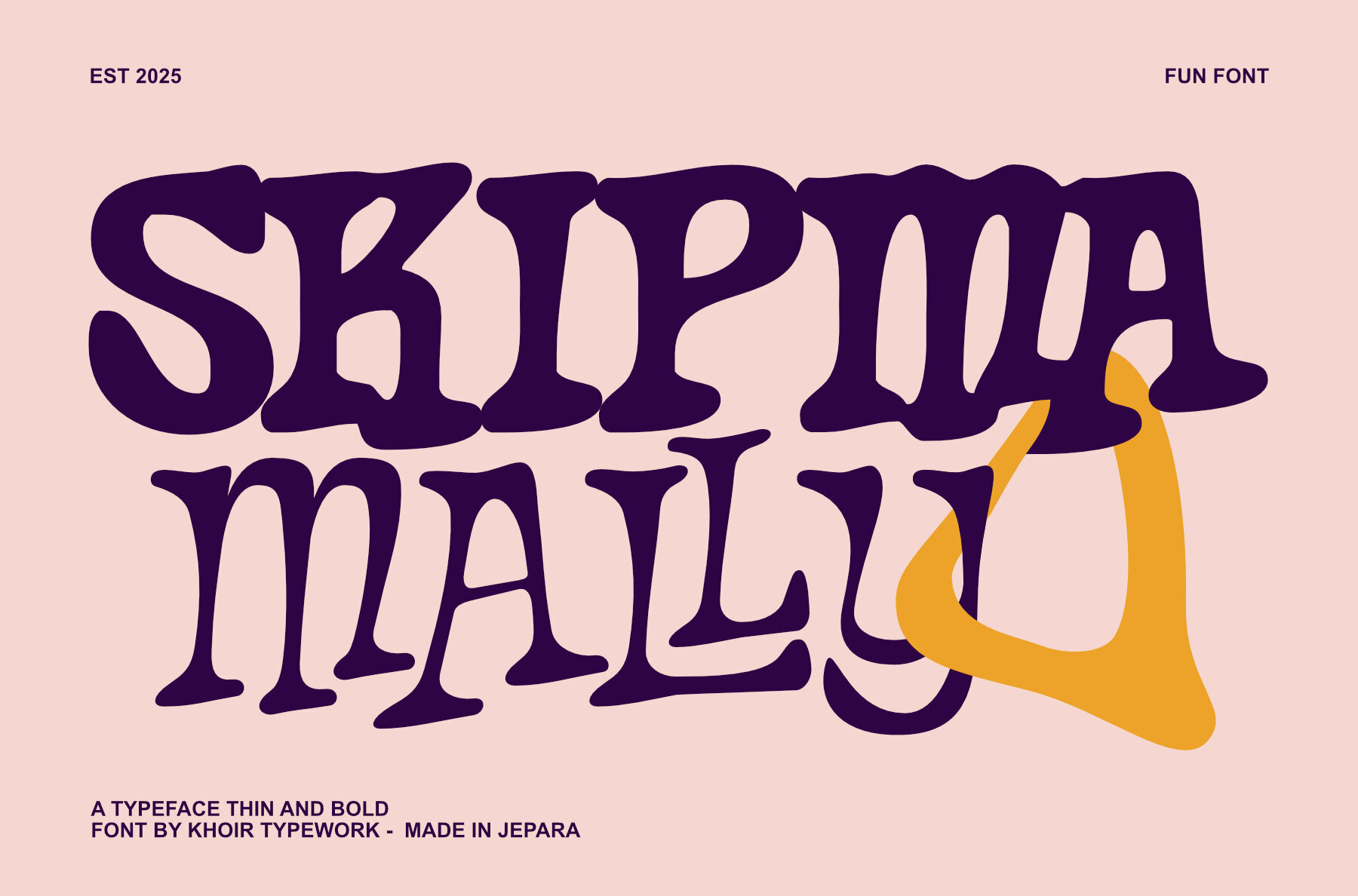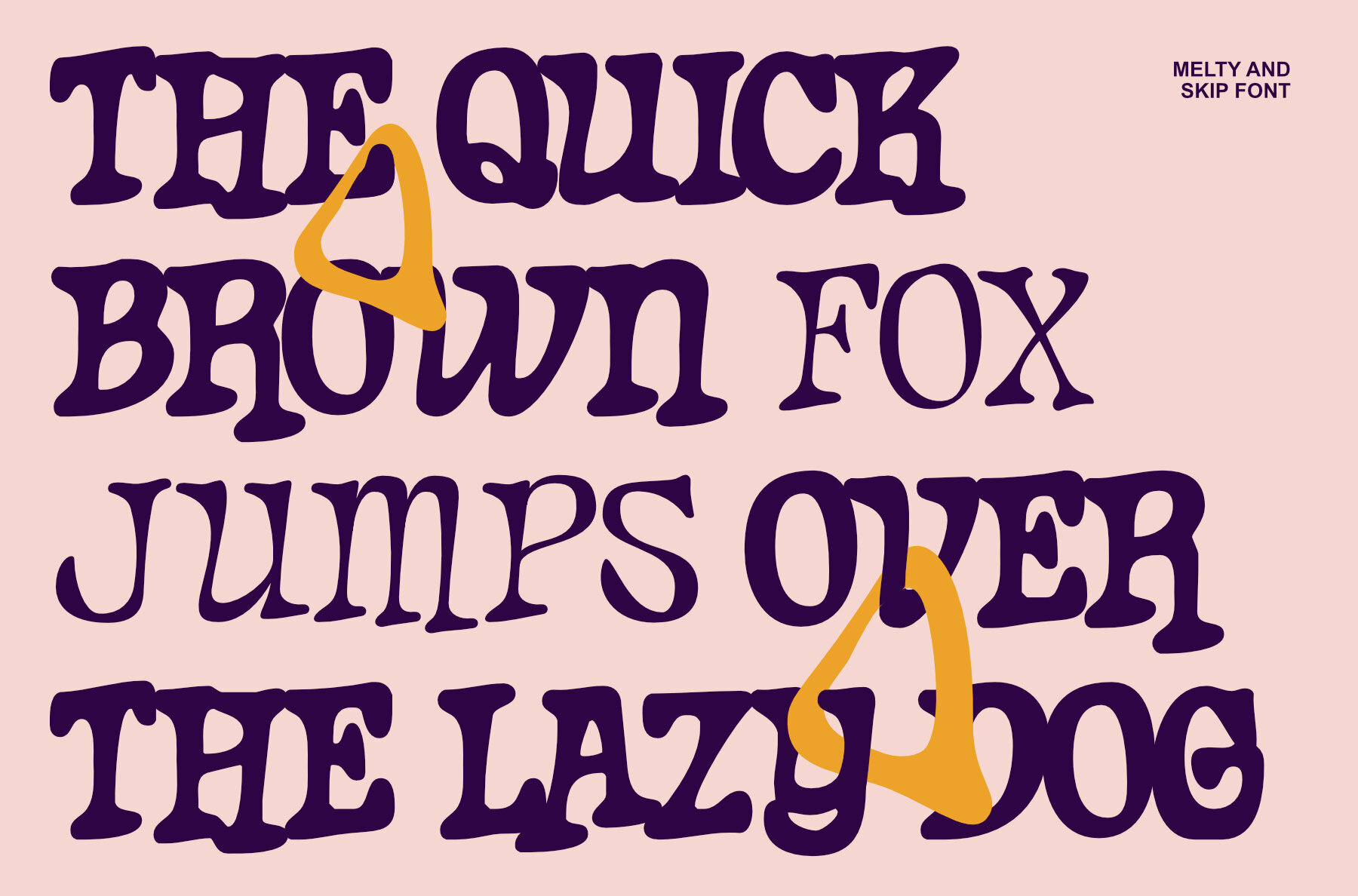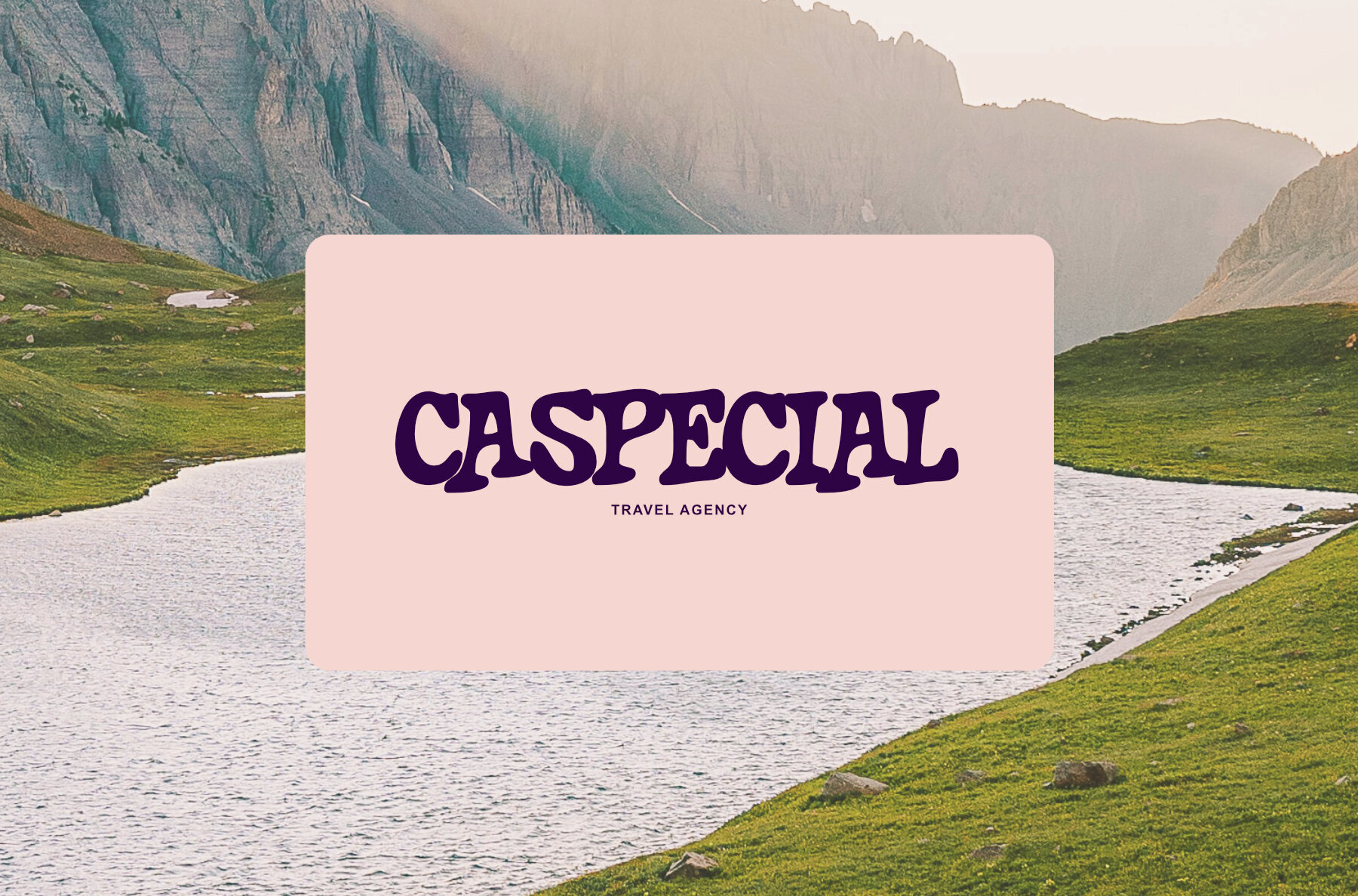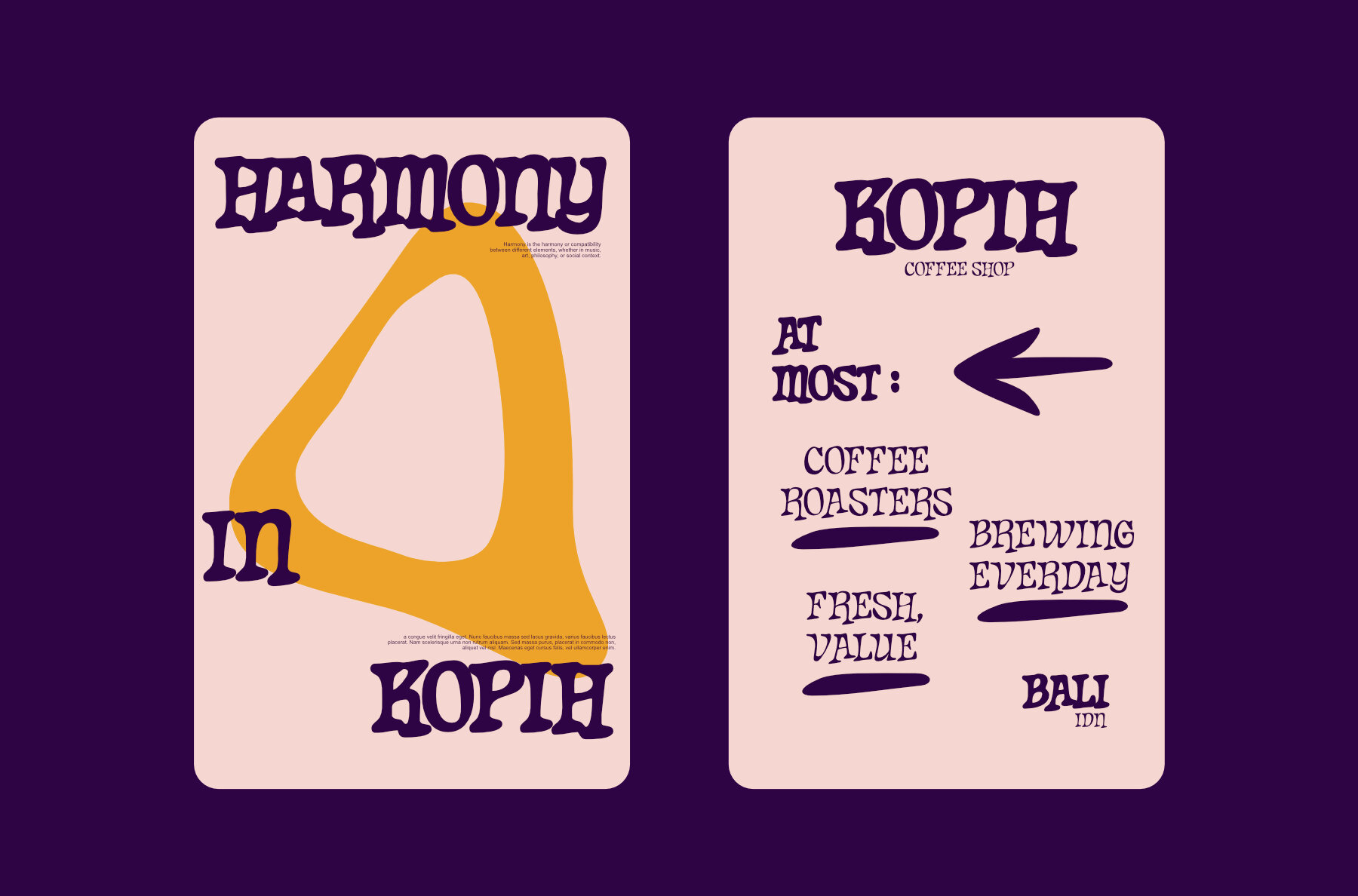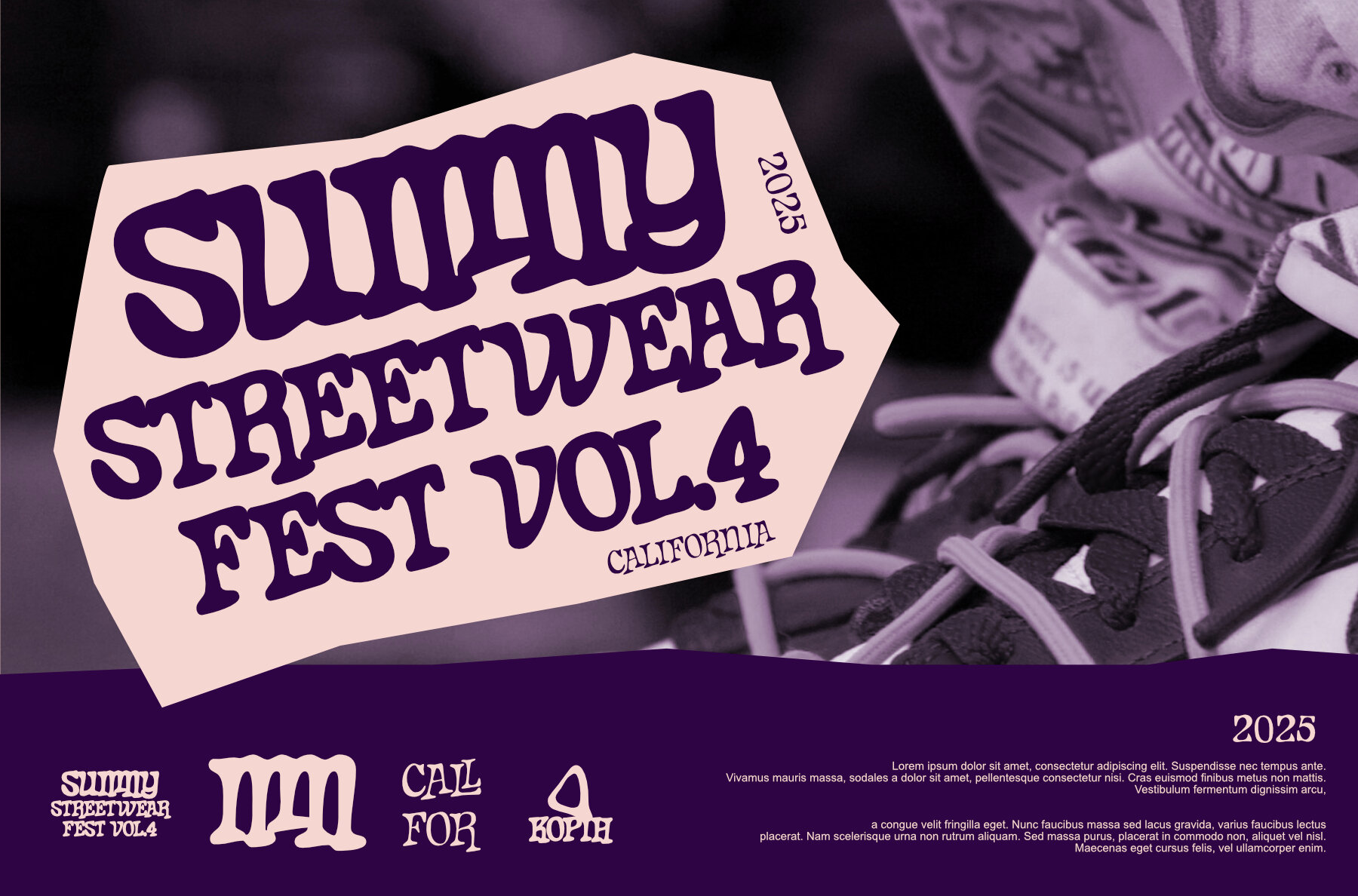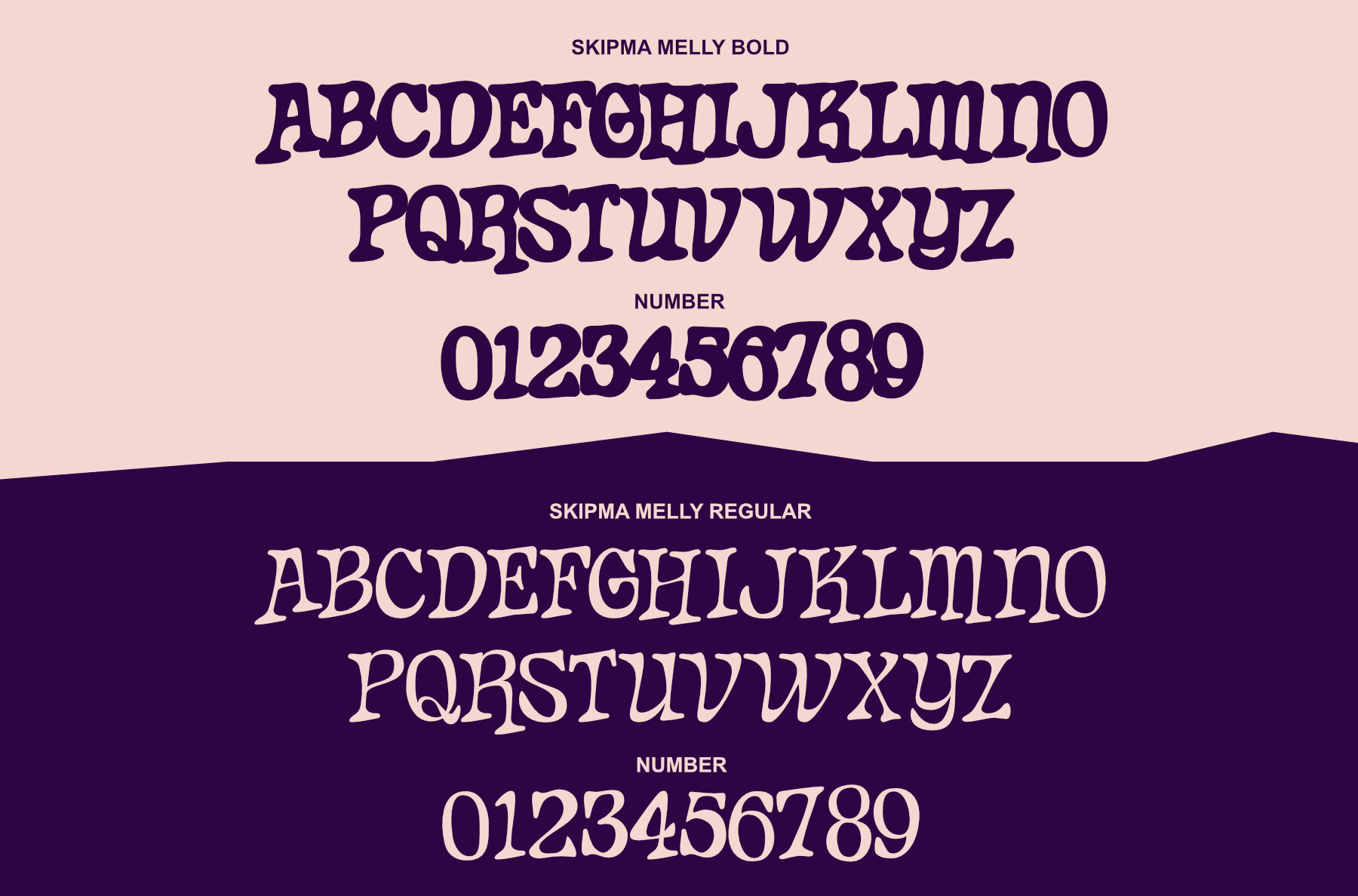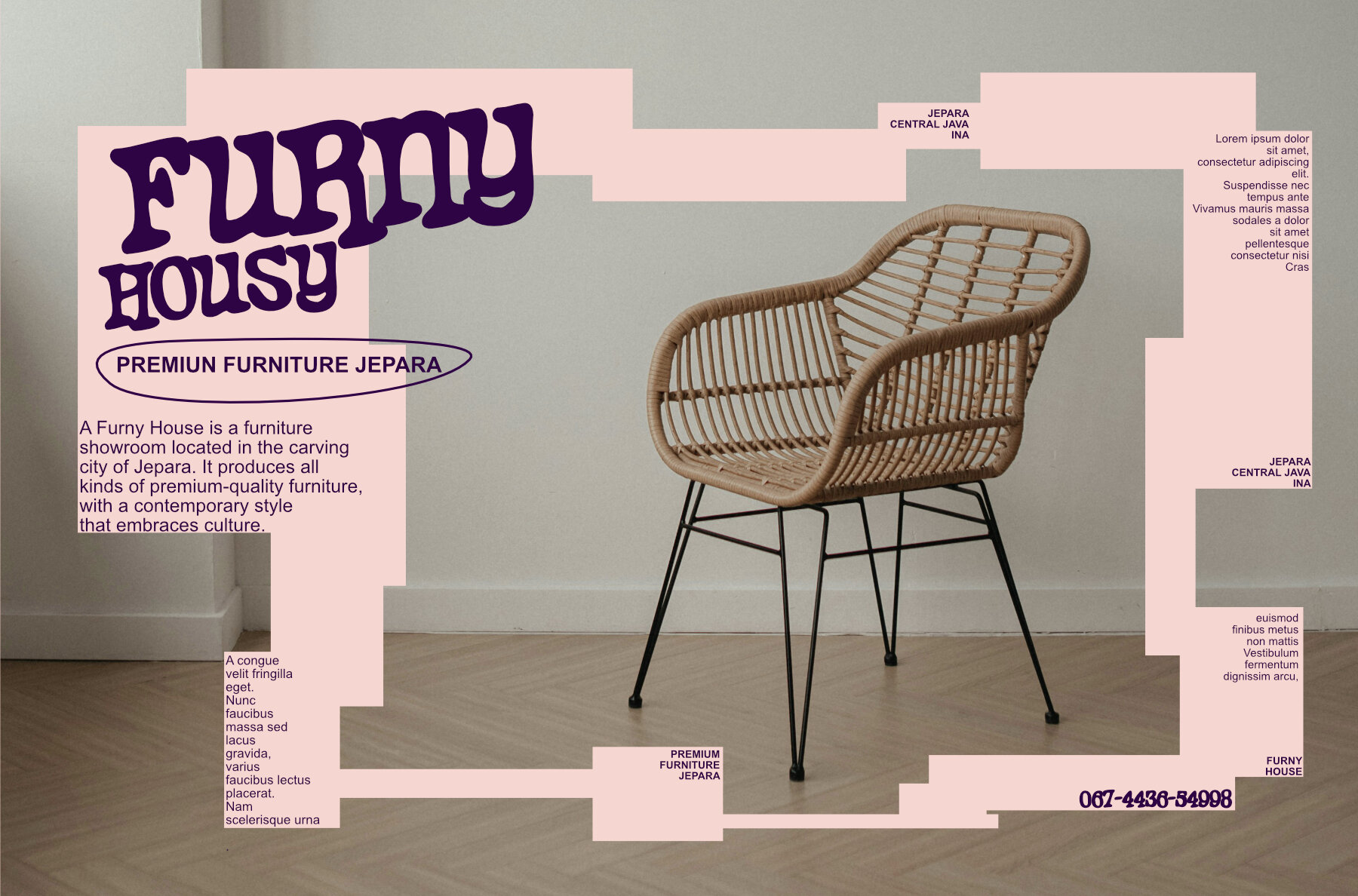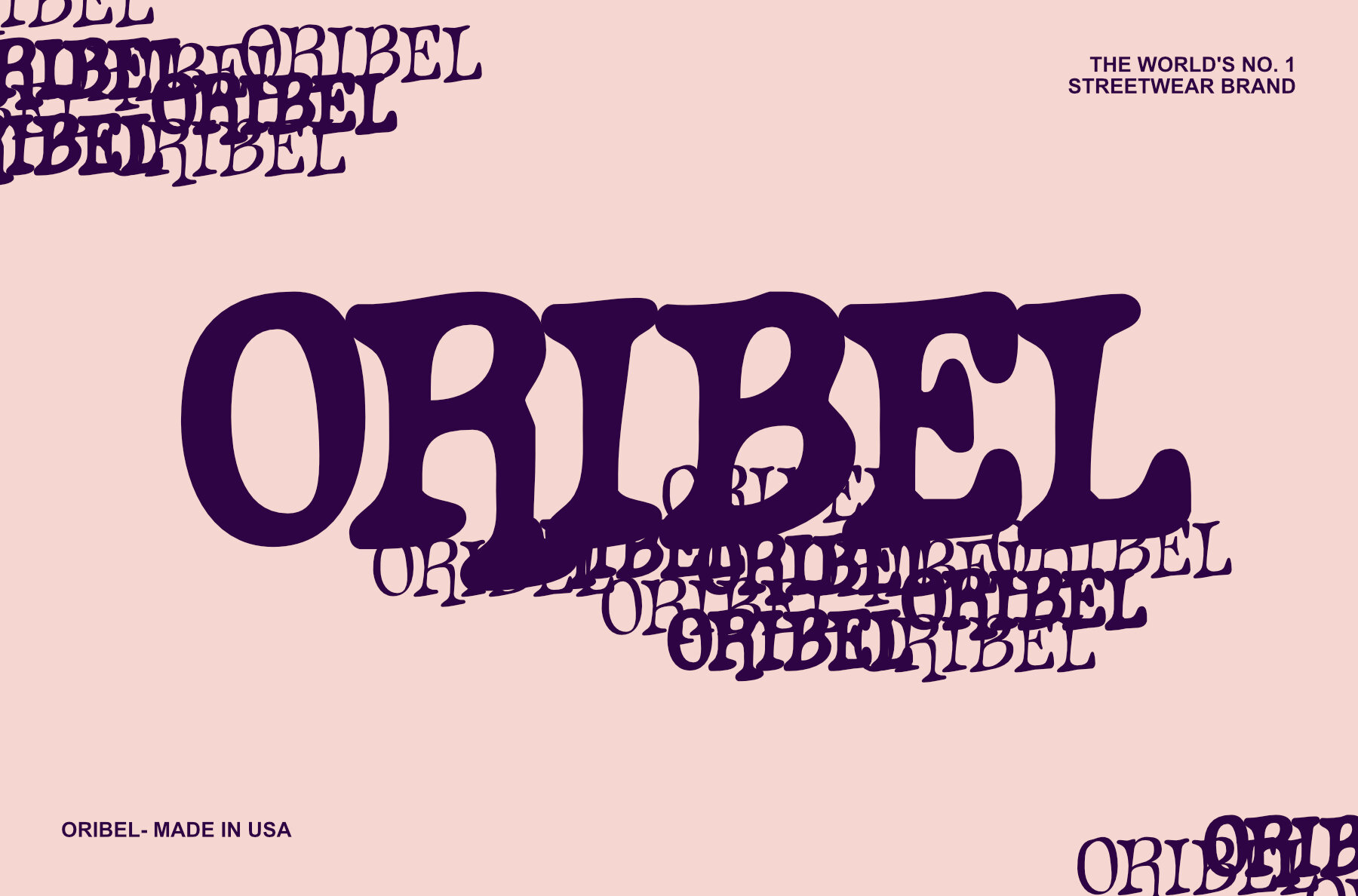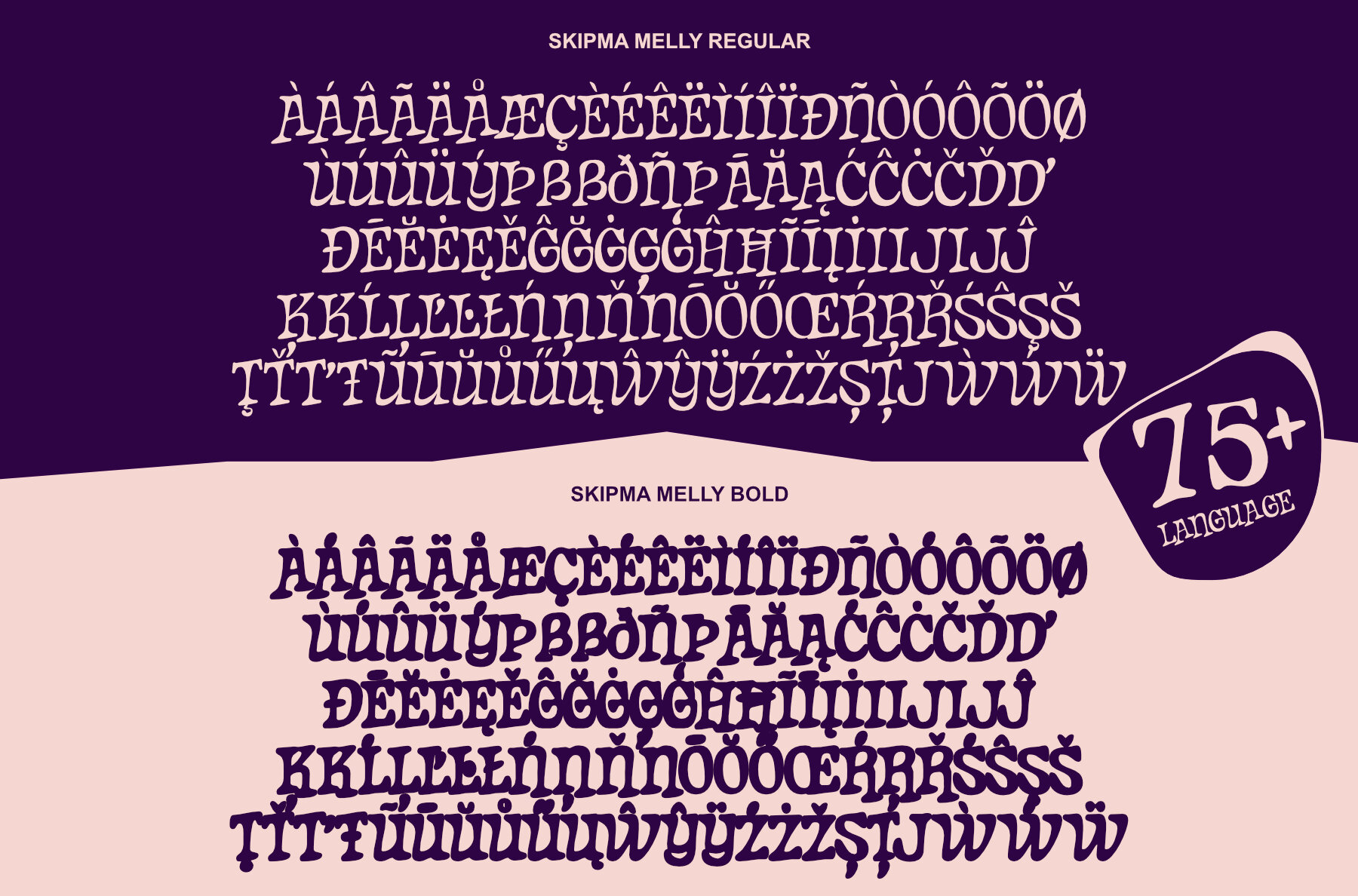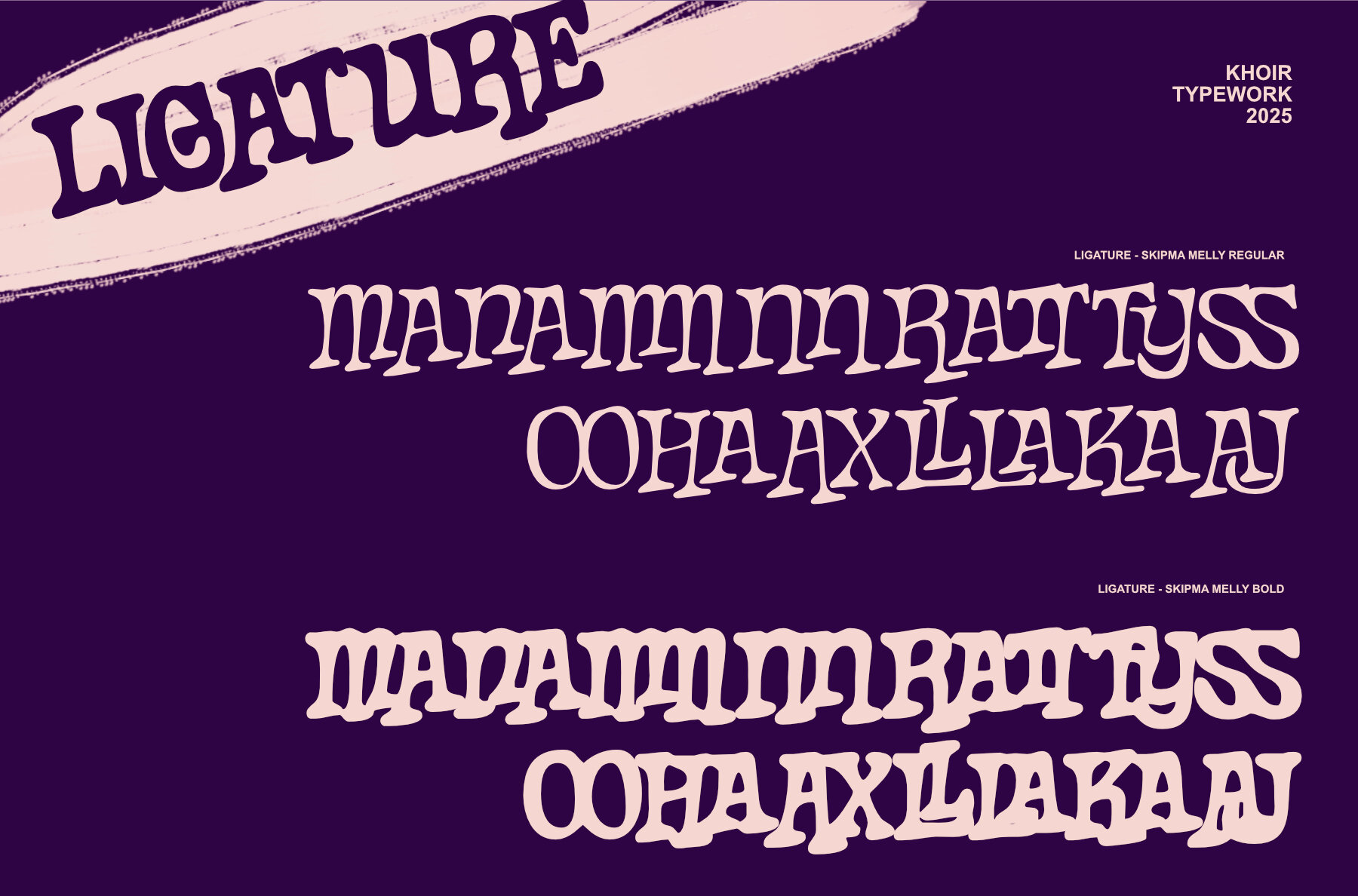
Skipma Mally Font
This unique typeface offers a playful yet coherent reading experience. Its random layout is thoughtfully designed to ensure harmony while featuring special ligatures in select letters for added distinction. Available in two styles—Regular and Bold—this font brings versatility to any project. It's ideal for a variety of applications, including logos, packaging designs, business cards, posters, and branding ventures.Dynamic Typeface: A Harmonious Chaos